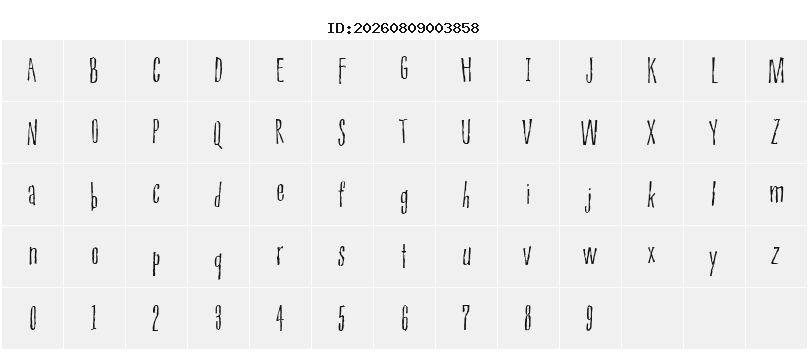
• Font Name: PiousHenryITC TT
• Font ID: PiousHenryITC TT
• Full Font Name: PiousHenryITC TT
• PostScript Name: PiousHenryITCTT
About PiousHenryITC TT.ttf
PiousHenryITC TT.ttf is a modern, elegant sans-serif font designed for ultimate readability and visual harmony. Perfect for branding, headlines, web design, and print materials.